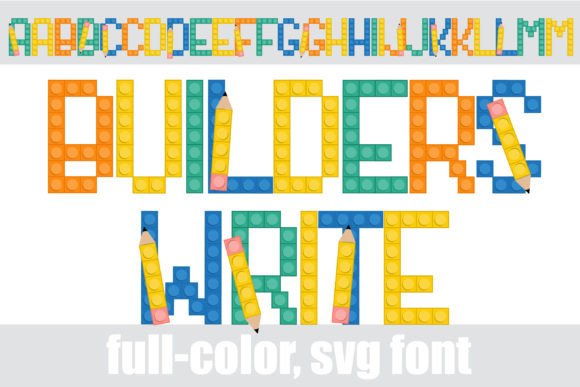
The Ultimate Guide to Builders Write Font: A Designer’s Dream Come True
Have you ever been working on a project, pouring your heart and soul into every detail, only to get stuck on one thing: finding the perfect font? I remember that feeling all too well. I was working on a client’s project, a colorful and playful poster for a kids’ play area, and I just couldn’t find a font that matched the vibe. That’s when I stumbled upon Builders Write Font, and it was love at first sight! 💕
This full-color font features a building block style with pencils throughout, giving it a fun and whimsical feel. The alt case with additional colors can be accessed through your system’s character map, making it perfect for titles, displays, posters, and more. In this article, I’ll share my honest review, a practical guide on how to use it, and some helpful tips and tricks.
- ✨ Unique and playful design that’s perfect for creative projects
- ✅ Full-color SVG font that adds an extra layer of visual interest
- 🎨 Alt case with additional colors for even more design possibilities
The Designer Inspiration Behind Builders Write Font
Builders Write Font was designed with creatives in mind. The designer, inspired by the world of construction and building, wanted to create a font that would bring a sense of playfulness and fun to designs. With its unique building block style and colorful pencils, Builders Write Font is the perfect addition to any design project that needs a little extra personality.